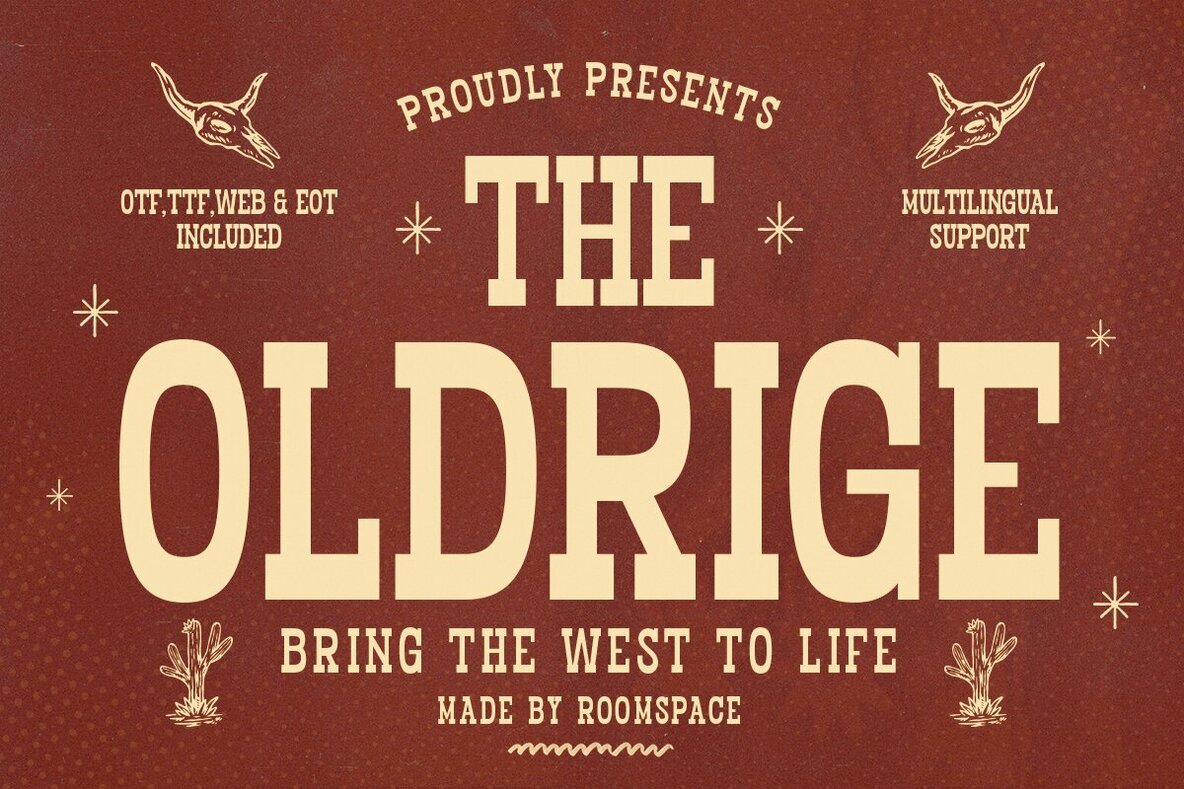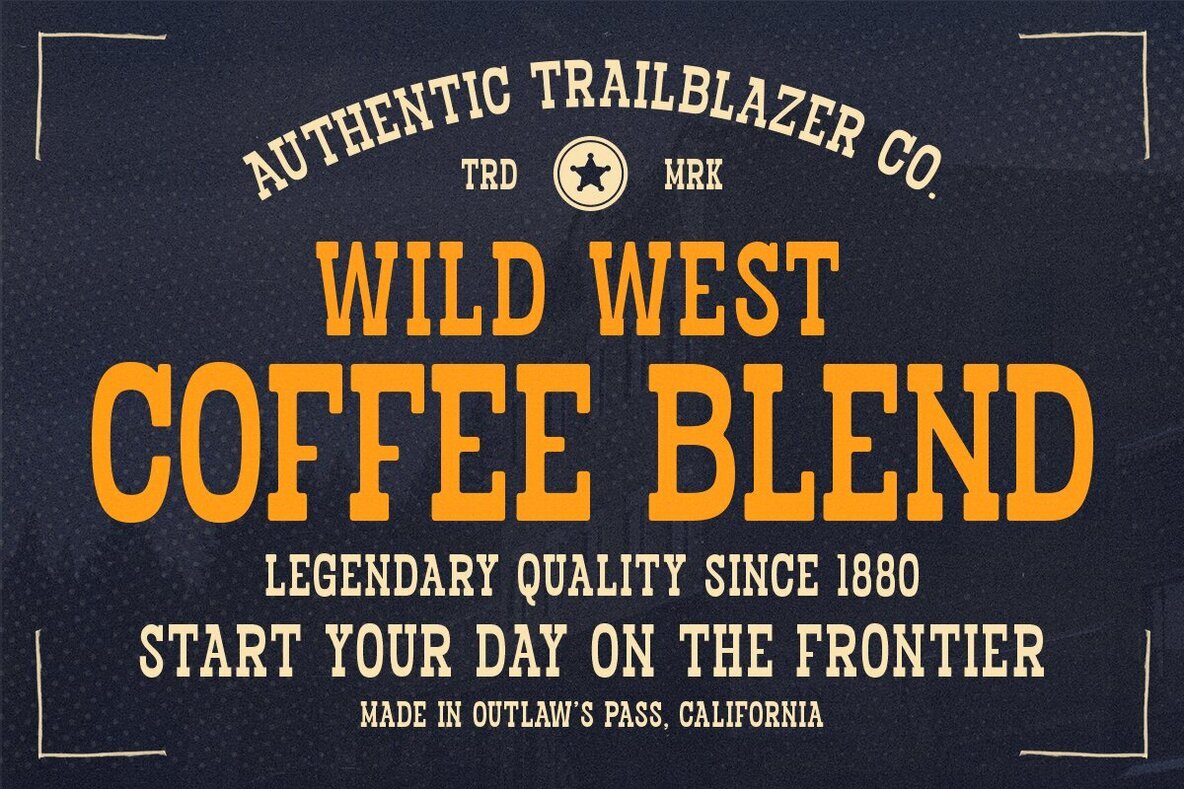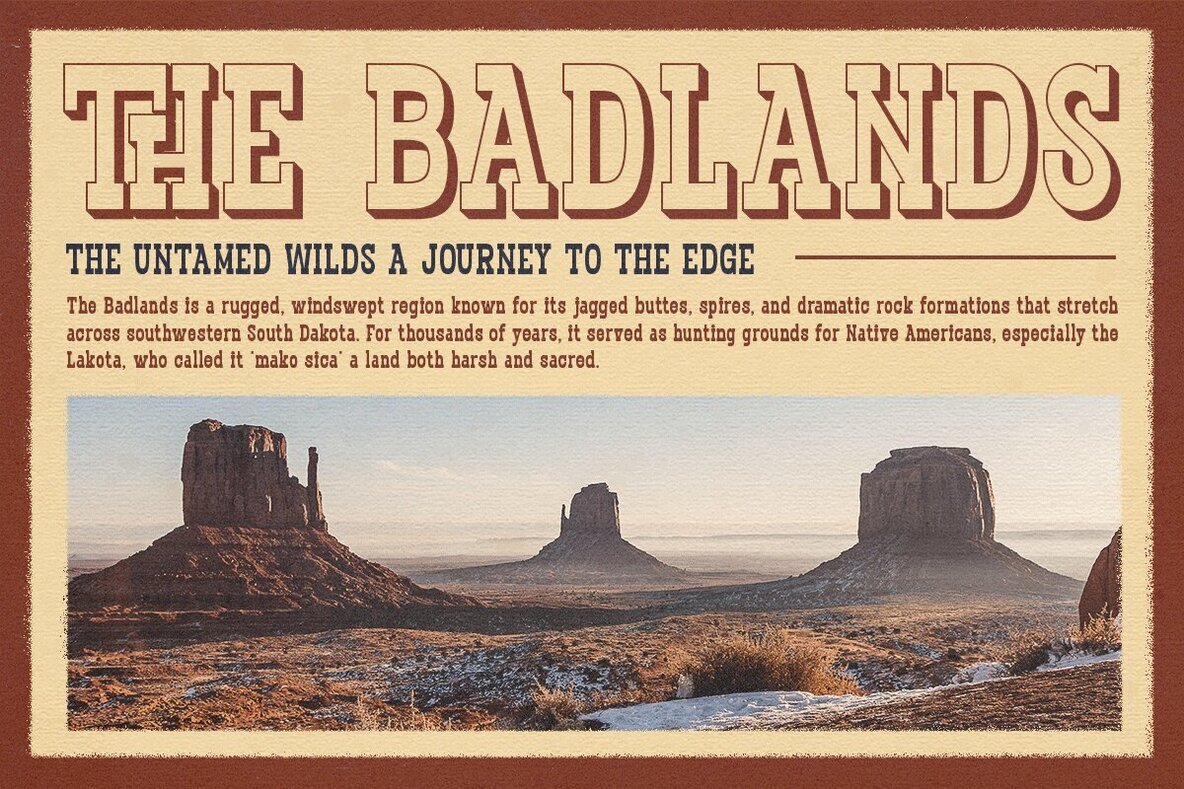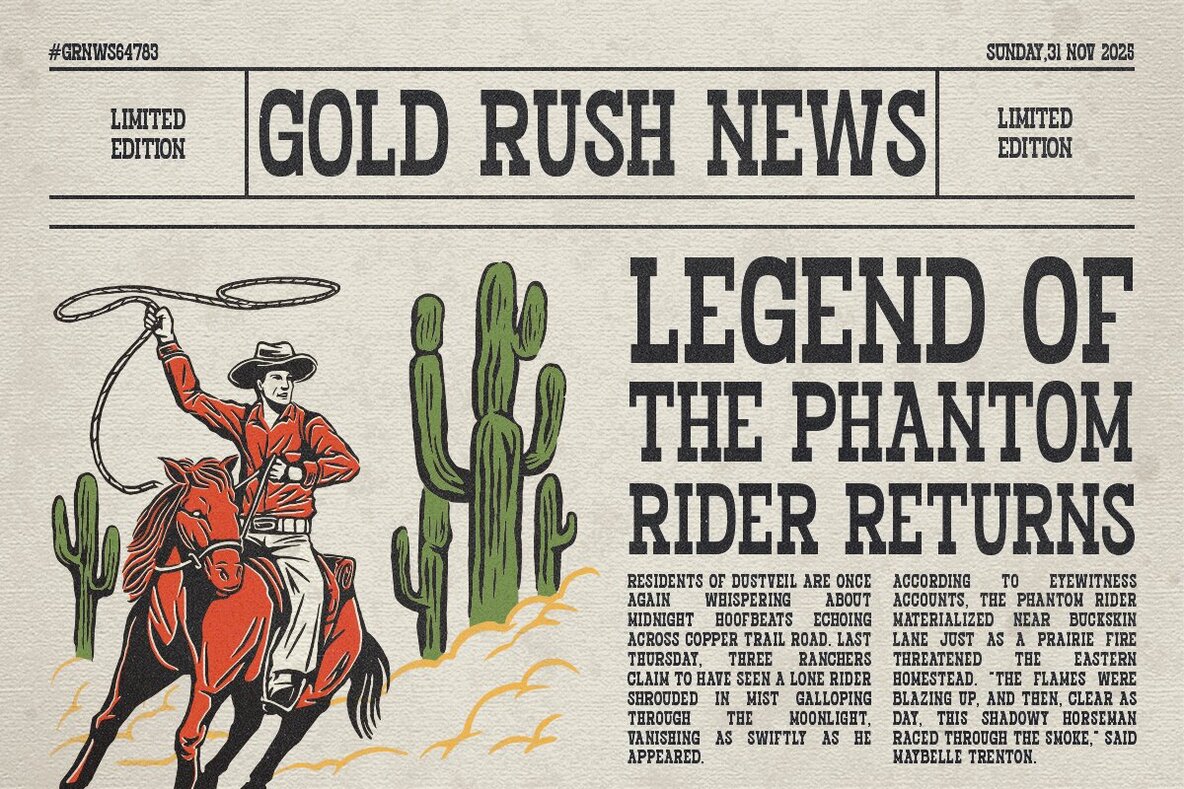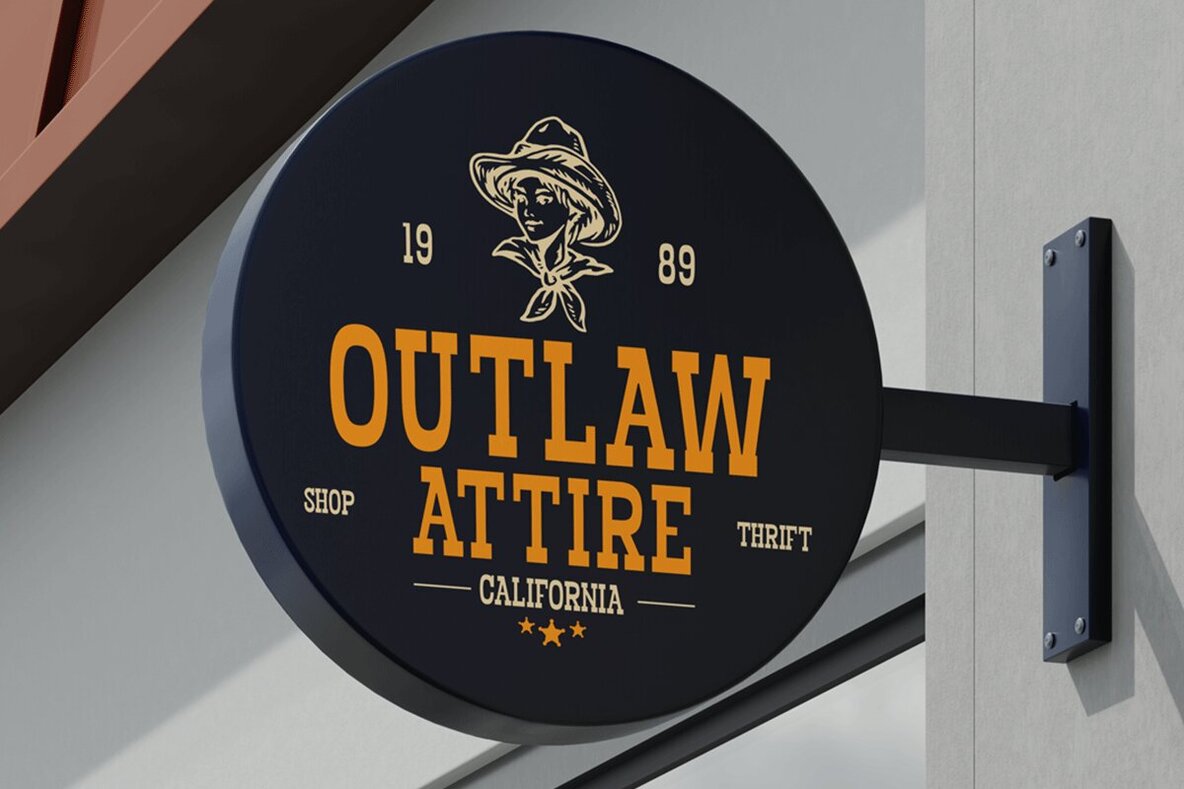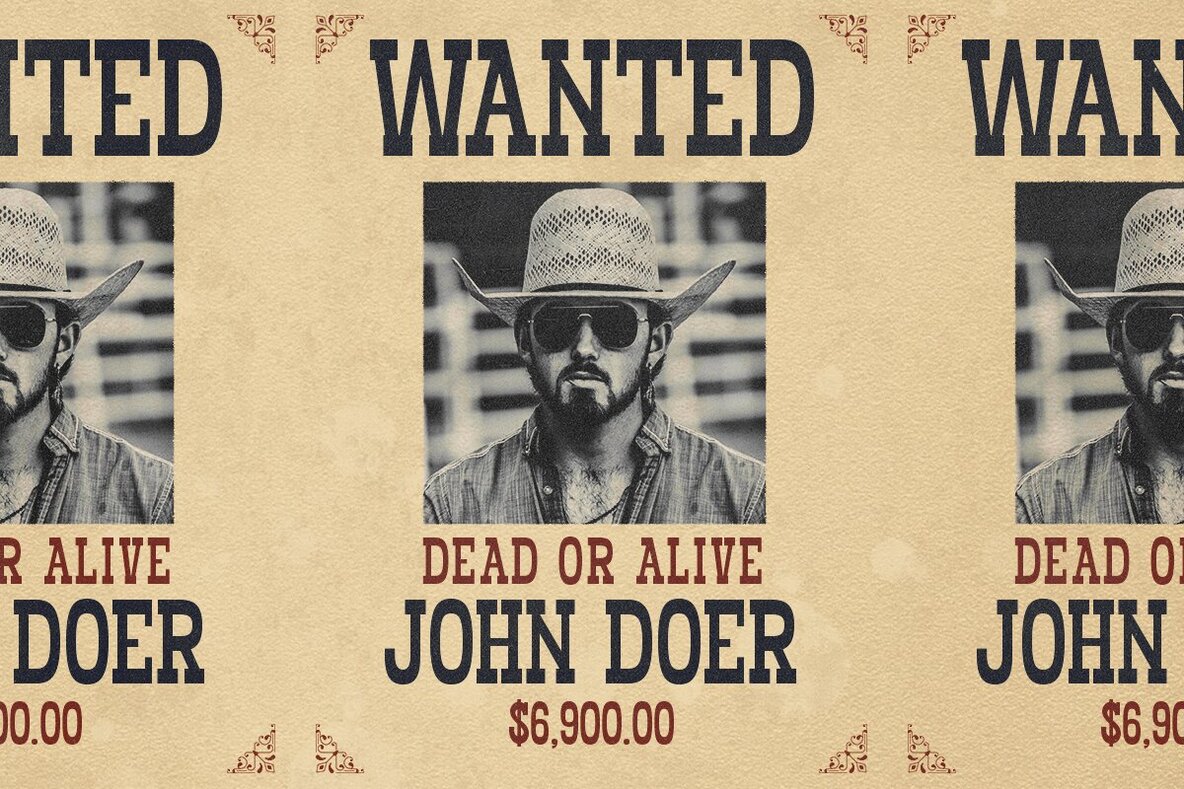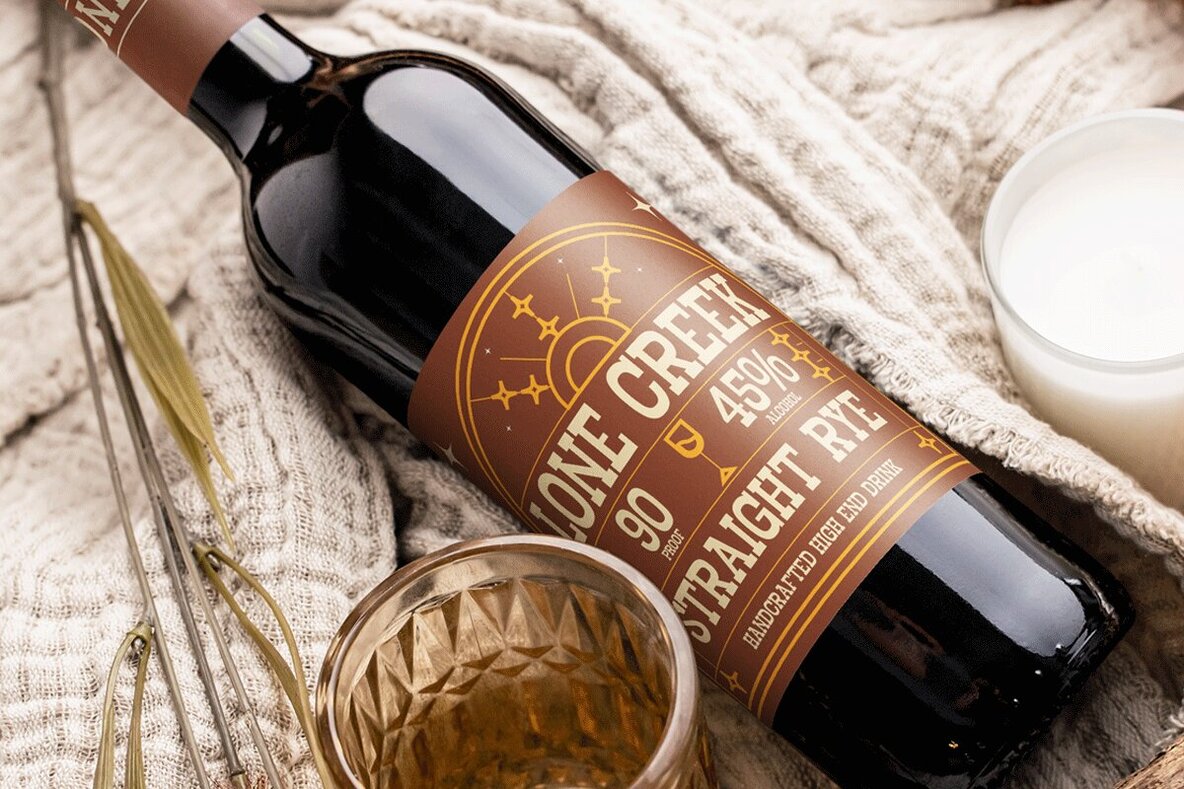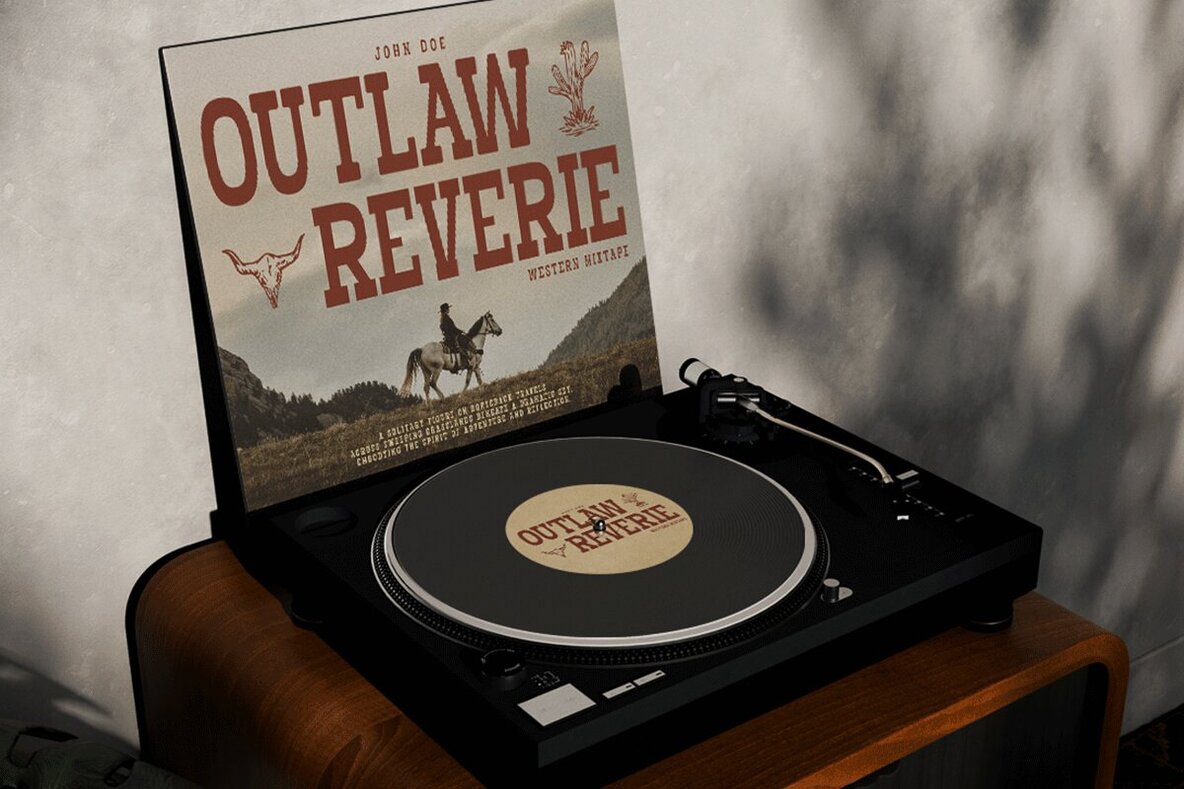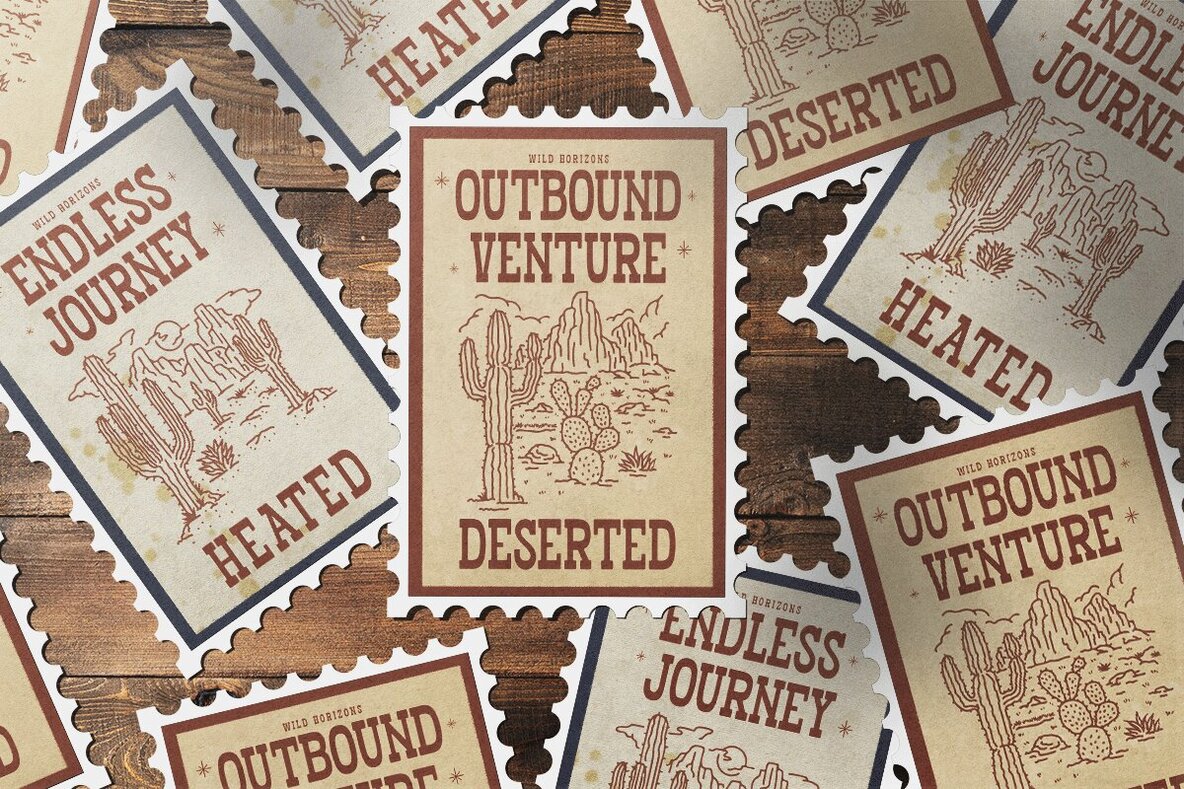
Oldridge Font
Western typography captures bold character and enduring charm. This slab serif font uses strong, block-like letterforms in a warm cream palette set against a textured, reddish-brown base. The overall effect evokes the authenticity and grit of classic frontier signage, making it well-suited to branding that calls for substance and Americana influence. Decorative elements—hand-sketched stars, steer skull motifs, and nuanced textures—highlight the richness of Old West iconography. The phrase “Bring the West to Life” encapsulates the font’s role in retro packaging, rustic posters, and heritage-inspired visual communications. Each letter carries an artisanal touch, supporting projects that seek a genuine vintage aesthetic without resorting to imitation.Western Slab Serif: Rugged Typography for Branding